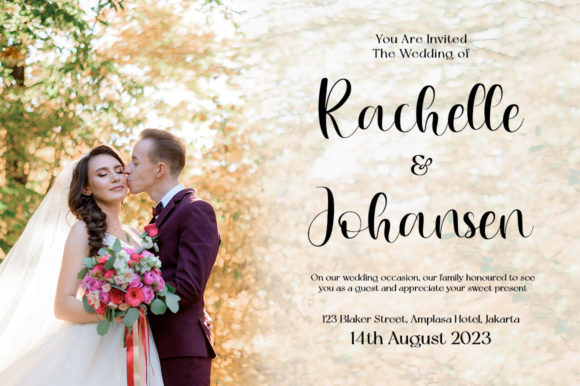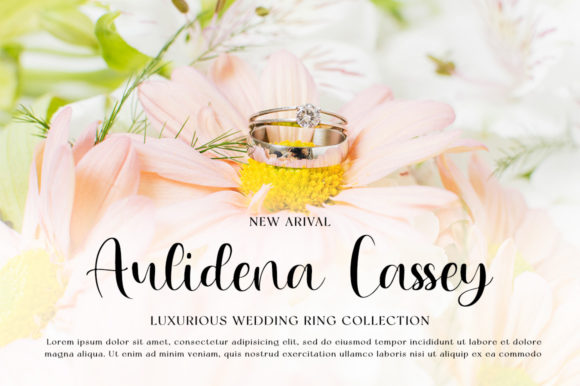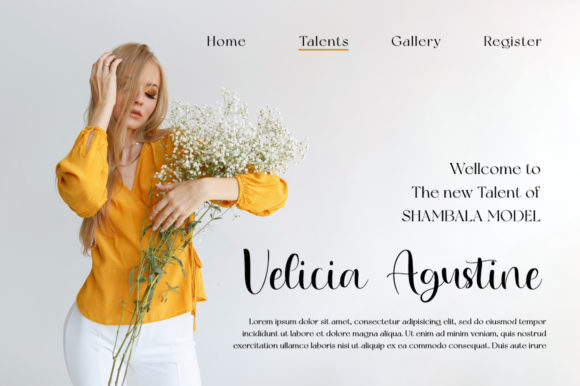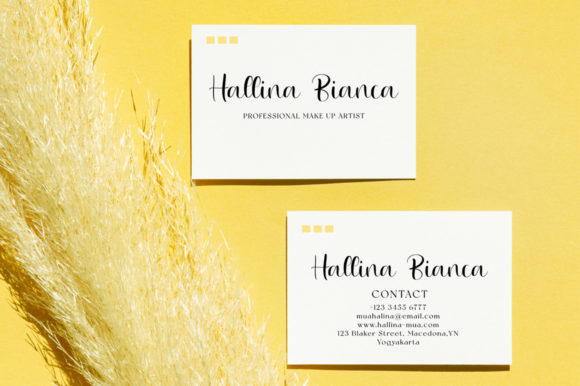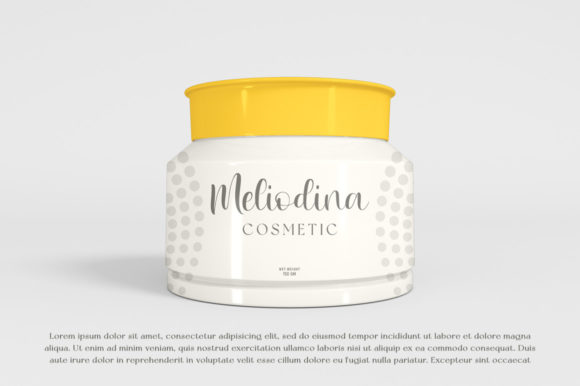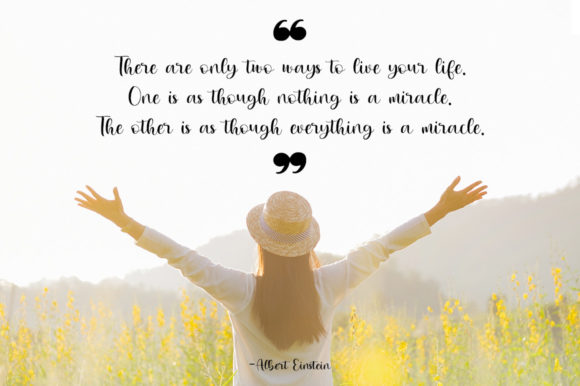
Introducing Devalina Script: Elevate Your Designs with Elegance and Sophistication
In the world of design, fonts play a pivotal role in conveying the intended message and aesthetic of a project. Among the myriad of font styles available, script fonts hold a special place for their ability to add a personal, elegant, and classy touch to any design. It is with great excitement that we introduce the Devalina Script, a stylish font that is poised to revolutionize the way you approach your creative projects. Whether you’re a seasoned designer or a crafty enthusiast, Devalina Script is your gateway to creating stunning visuals that speak of sophistication and modernity.
The Essence of Devalina Script
Devalina Script is not just another font; it’s an experience. This beautiful script font is meticulously crafted to offer your projects a unique personal touch. Its elegant strokes and modern look make it an ideal choice for designers and crafters looking to infuse their work with a sense of luxury and refinement. From the first glance, Devalina Script’s gorgeous typographic features will captivate you, opening a world of creative possibilities.
One of the standout qualities of Devalina Script is its versatility. This font is not limited to a specific genre of design but can be seamlessly integrated into a wide array of projects. Here are just a few examples of where Devalina Script can make a significant impact:
• Logos & Branding: Create a lasting impression with a logo that exudes elegance and sophistication.
• Invitations: Make your invitations stand out with a font that spells class and personal touch.
• Stationery: Elevate your letterheads, business cards, and notebooks with a stylish and modern script.
• Wedding Designs: Add a touch of romance and luxury to wedding cards, banners, and decor.
• Social Media Posts: Stand out in crowded social media feeds with elegant and eye-catching text.
• Advertisements: Give your ads a professional and upscale look that attracts and retains customer attention.
• Product Packaging: Make your product packaging not just protective but a statement piece.
• Product Designs: Incorporate Devalina Script into your product designs for a unique and sophisticated appeal.
• Labels: Whether for products, files, or gifts, add a personal and stylish touch.
• Photography: Use Devalina Script for watermarks or photo captions to add an artistic element.
• Special Events: From birthdays to corporate events, make your event branding memorable.
Why Choose Devalina Script?
Devalina Script offers more than just aesthetic appeal; it brings a host of benefits that make it a preferred choice for designers and crafters:
• Elegant and Classy: Instantly elevate your designs with a sophisticated look.
• Modern Appeal: Keep your projects contemporary and relevant with a modern script font.
• Easy to Read: Despite its elegant nature, Devalina Script maintains readability, making it perfect for both headings and body text.
• Highly Versatile: Use it across various design projects without compromising on style or legibility.
• Time-Saving: With Devalina Script, you can achieve professional-looking results quickly, saving you time and effort.
Devalina Script is more than just a font; it’s a design companion that can transform your creative projects with its elegant, classy, and modern appeal. Whether you’re aiming to create stunning logos, beautiful wedding designs, or captivating social media posts, Devalina Script is your key to unlocking a world of sophistication and style. Embrace the power of beautiful typography with Devalina Script and watch your designs soar to new heights of creativity and excellence.